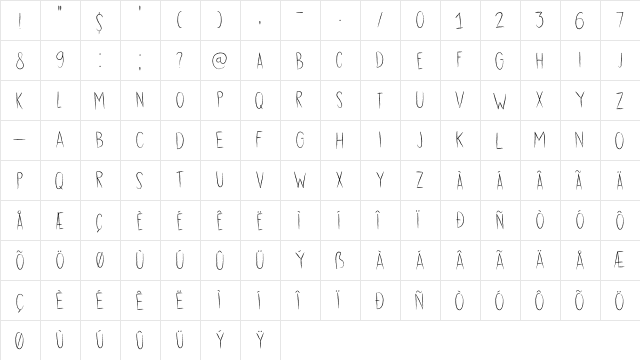
DK Dubbel Zout Regular
| Foundry | David Kerkhoff |
| Designer | David Kerkhoff |
Design Context for DK Dubbel Zout Typeface
DK Dubbel Zout is a composed and adaptable typeface that performs quietly and consistently across a wide range of design contexts.